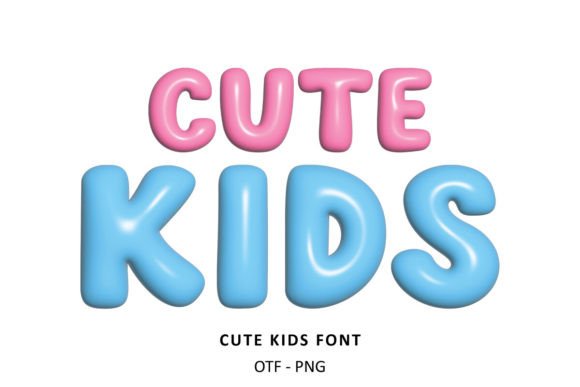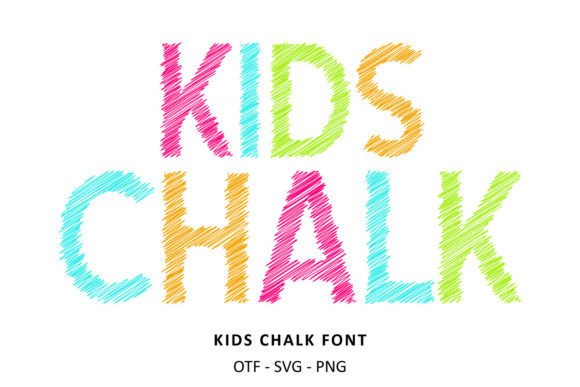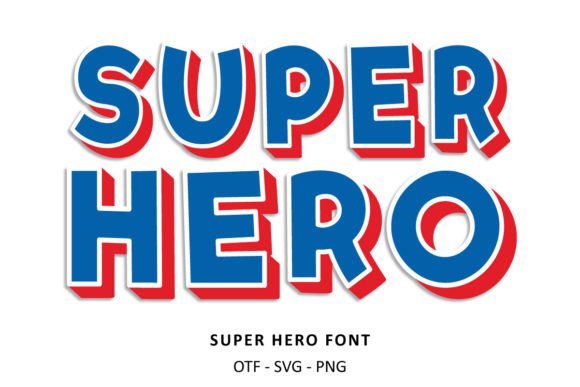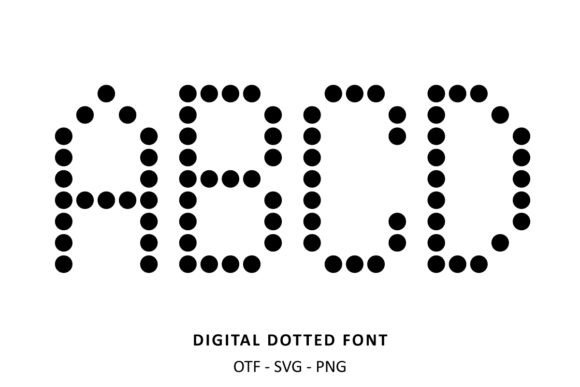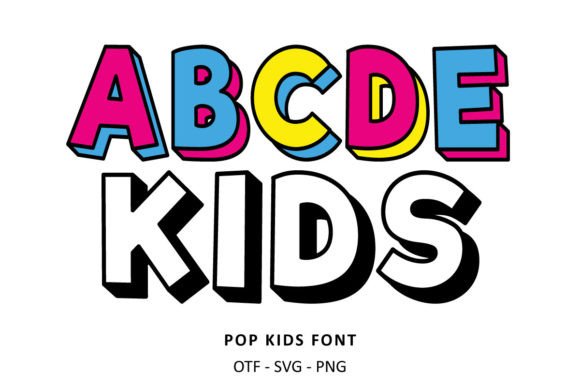
Introduction to Kids Collection Font
Do you remember the excitement of creating handmade cards for your little ones on their birthdays or holidays? The joy of watching them beam with pride as they show off their artwork is a feeling that never gets old. As a designer, you want to capture that same magic in your creative projects, making them special and meaningful for the kids in your life. That’s where the Kids Collection Font comes in – a bundle of 14 high-quality fonts designed specifically for kids-themed projects.
Whether you’re working on greeting cards, invitations, social media posts, or logos, this font collection has got you covered. With its transparent background and versatile design, you can easily customize your projects to fit any style or theme. The best part? It’s a valuable resource for designers who want to create high-quality, unique designs without breaking the bank.
Key Features of Kids Collection Font
- High-quality design resource featuring a wide range of fun and colorful characters perfect for a creative project.
- Unique characteristics include a playful and whimsical design style, making it perfect for kids’ themed projects and designs.
Honest Review: Kids Collection Font
I recently had the chance to work with the Kids Collection Font, and I must say it’s been a delightful experience. This font is perfect for any creative project that requires a fun and playful vibe. With its high quality design, it’s a fantastic addition to any design resource.
- ✨ Wide range of characters, including numbers, letters, and symbols, making it perfect for creating engaging content.
- ✨ The font is highly customizable, allowing you to adjust the size, color, and style to suit your needs.
- ✨ The transparent background makes it easy to use on any background, giving you more creative freedom.
- ⚠️ The font may not be suitable for formal or professional projects, as it has a more playful and casual tone.
- ⚠️ Some users may find the font a bit too flashy, so it’s essential to use it sparingly and in moderation.
Overall, I’m impressed with the Kids Collection Font. It’s a fantastic design resource that can add a touch of fun and personality to any project. I would highly recommend it to designers looking for a high-quality, creative font that’s easy to use and customize.
To get the most out of the Kids Collection Font, experiment with different text sizes, colors, and alignments. You can also combine it with other design elements to create a unique look.
The Kids Collection Font is perfect for designing children’s books, educational materials, and promotional materials for kids’ products. Its high-quality design and transparent background make it a versatile resource for various creative projects.